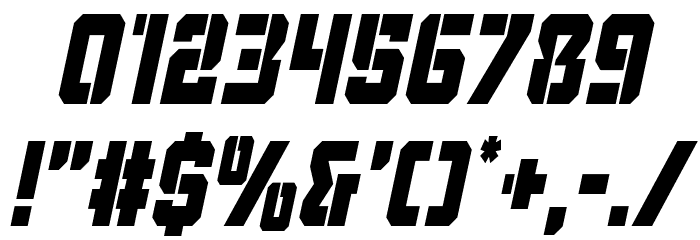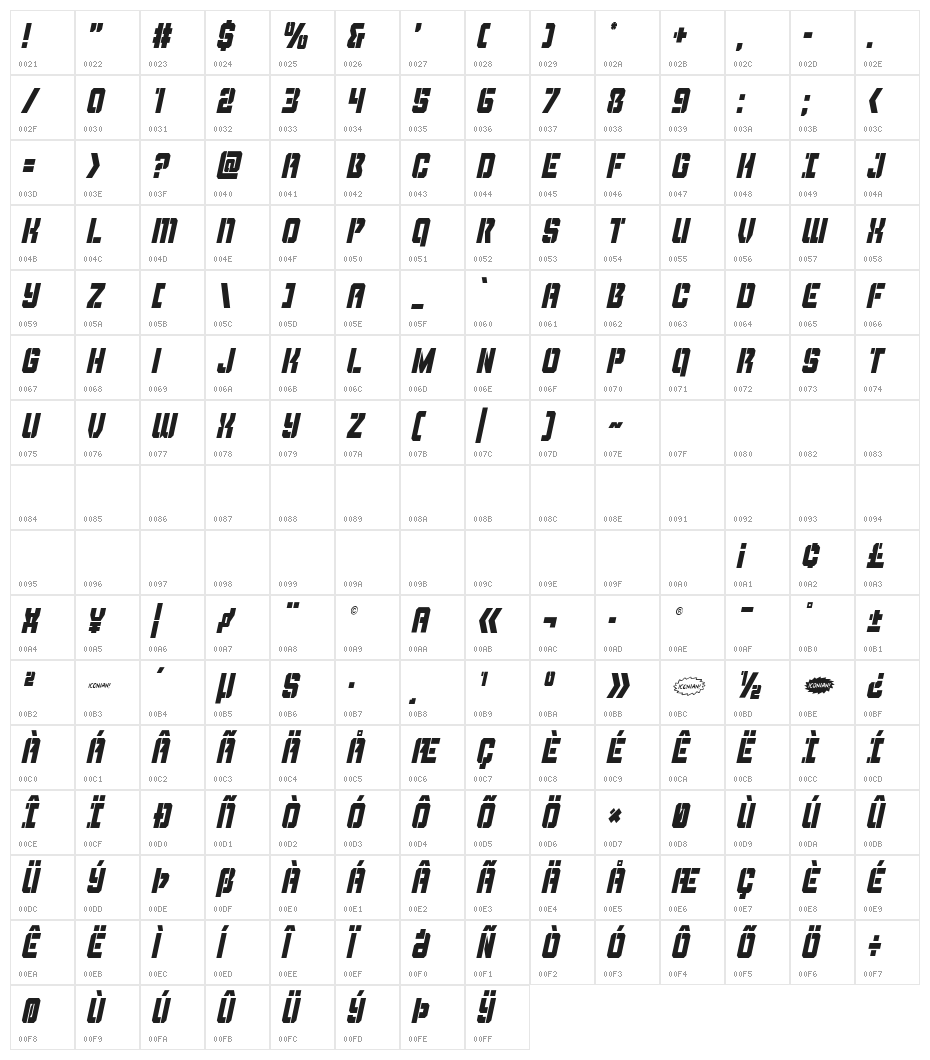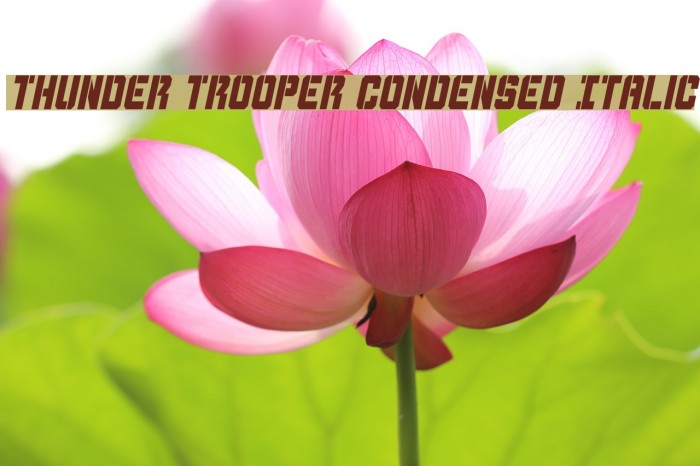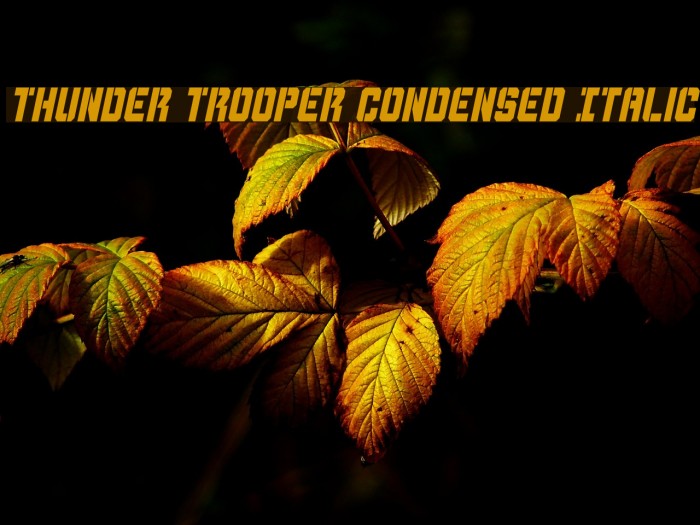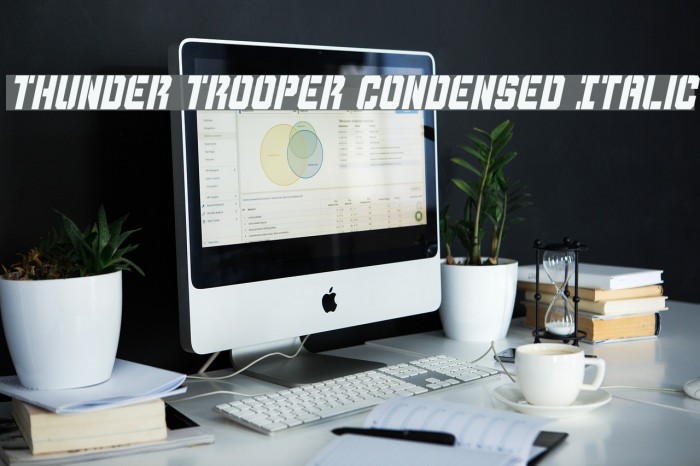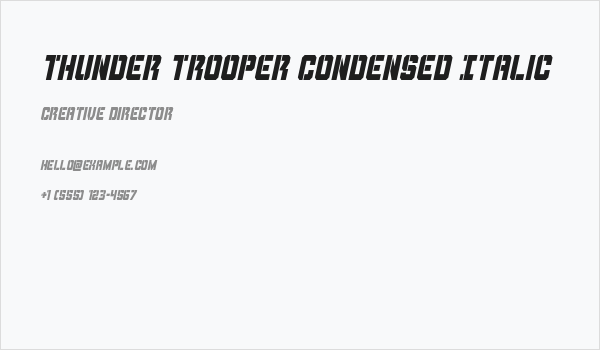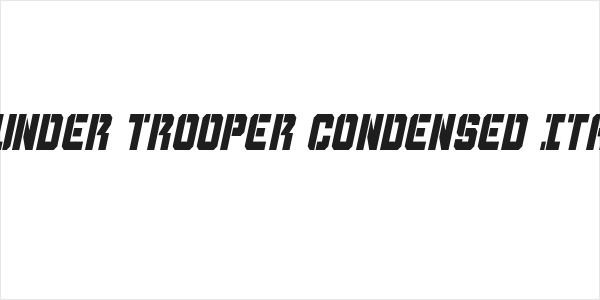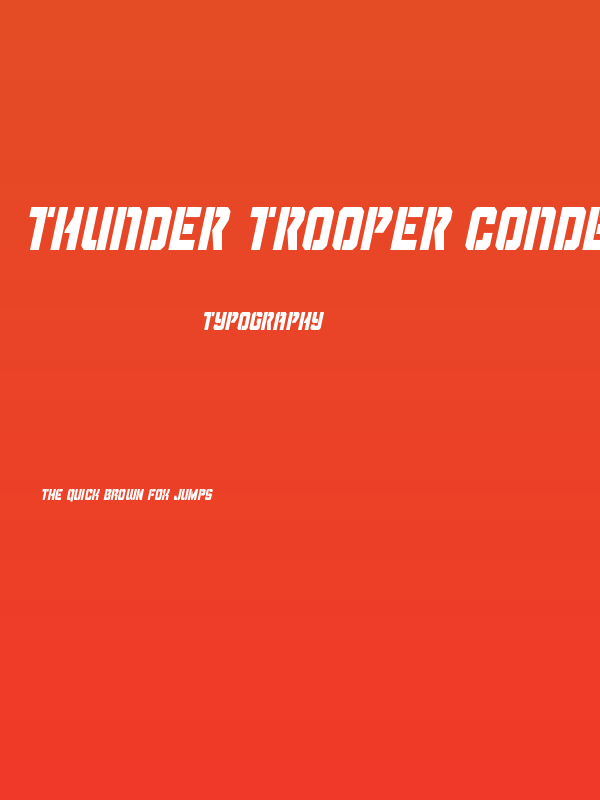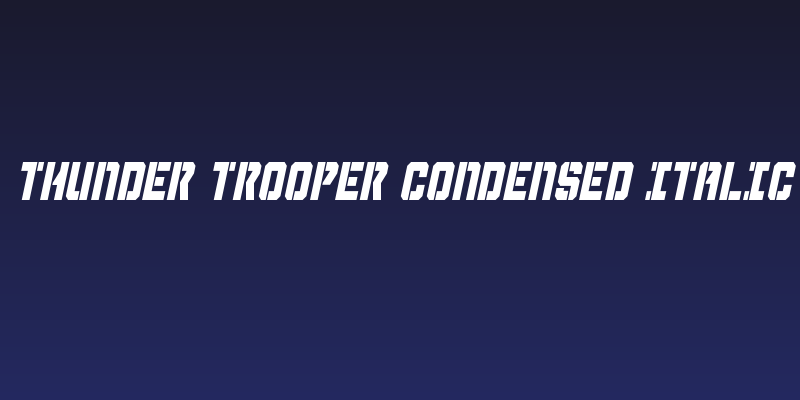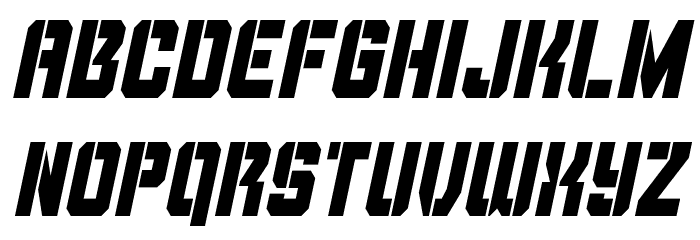
Thunder Trooper Condensed Italic Font
Thunder Trooper Condensed Italic Description
This font features a bold, condensed style with a strong italic slant, giving it a dynamic and energetic appearance. The characters are designed with sharp, angular edges and a uniform stroke width, contributing to a modern and futuristic aesthetic. The uppercase and lowercase letters maintain a consistent height, enhancing readability while preserving the font's unique style. The numbers and special characters are crafted to match the overall design, ensuring a cohesive look across all text elements. This font's distinct style makes it suitable for projects that require a bold and impactful visual presence.
| Proposed Projects | Ideal for sports branding, action movie posters, video game titles, and dynamic advertising campaigns. |